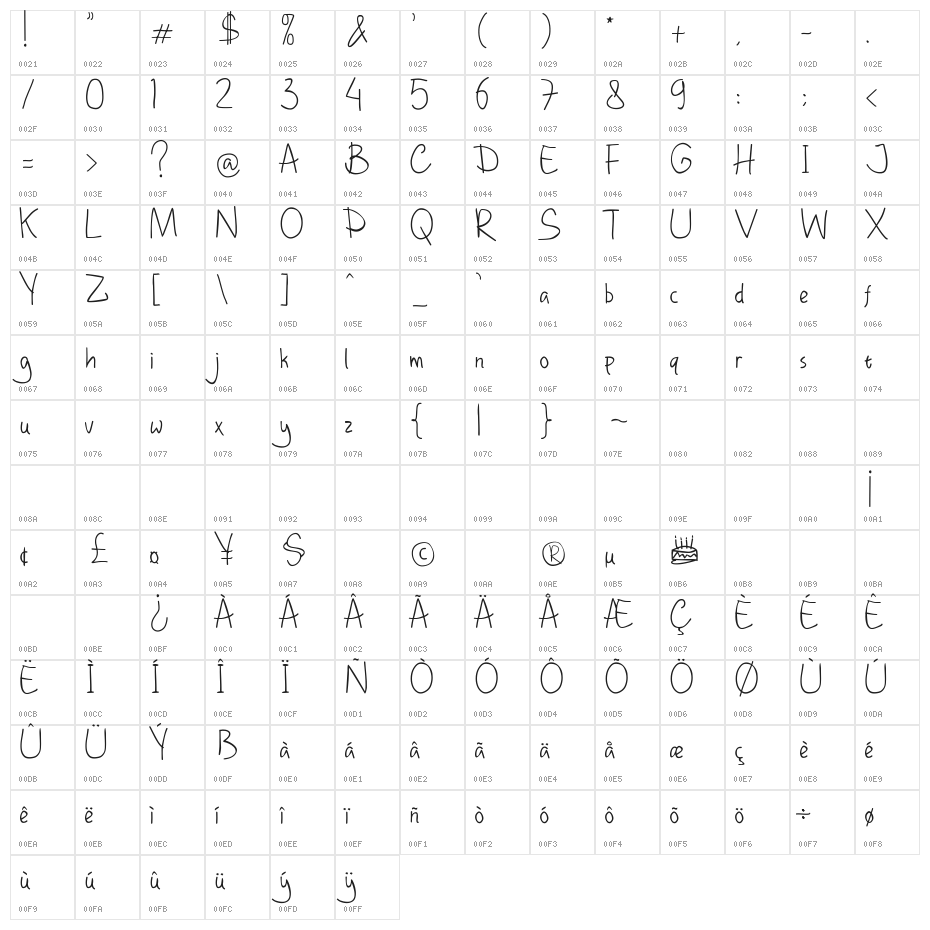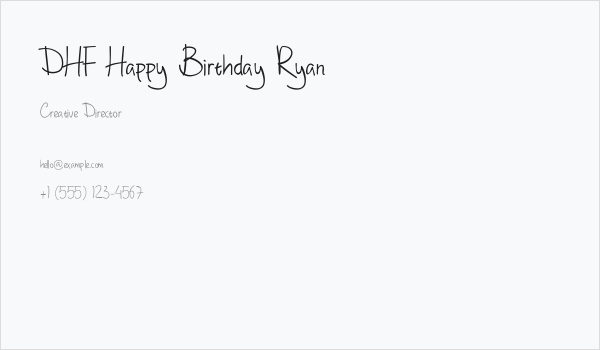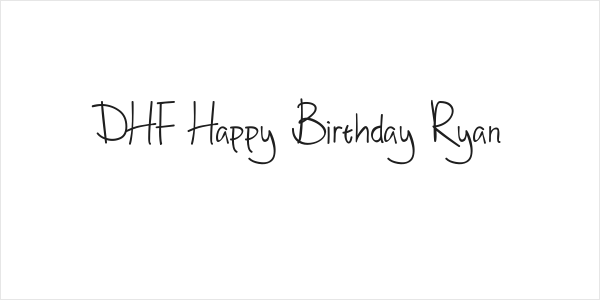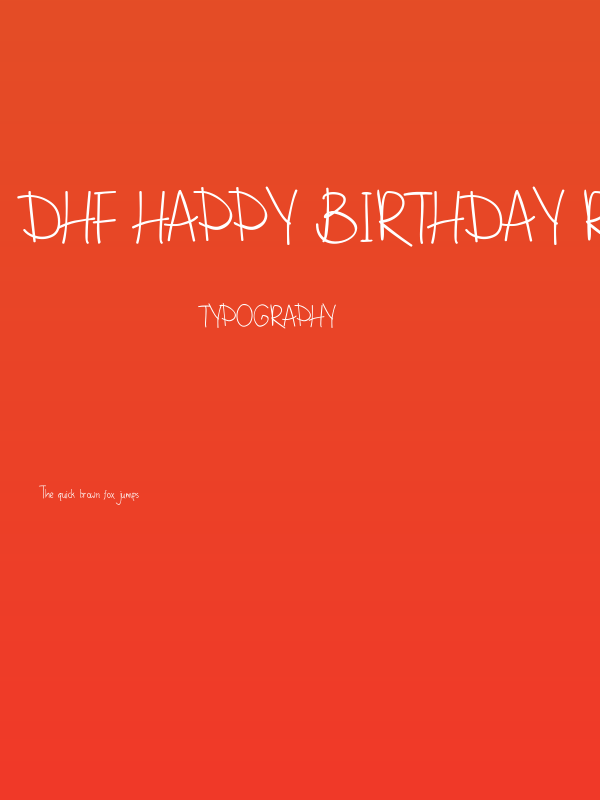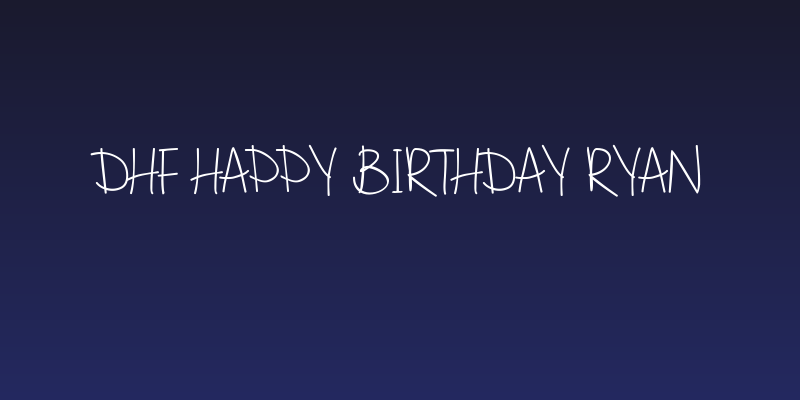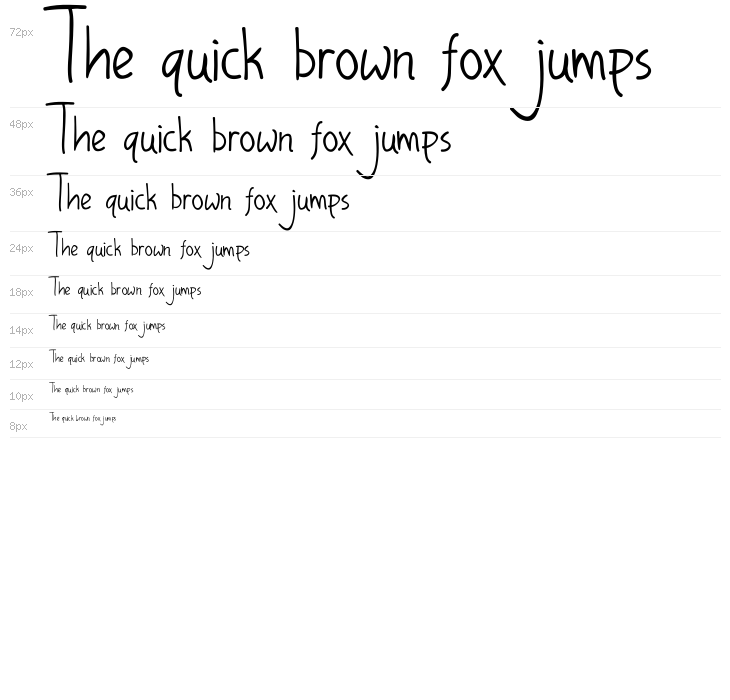
DHF Happy Birthday Ryan Font
DHF Happy Birthday Ryan Description
This playful and whimsical font features a handwritten style with a casual and friendly appearance. The characters are slightly irregular, giving it a personal touch that mimics natural handwriting. The uppercase letters are tall and slender, while the lowercase letters maintain a consistent flow with rounded edges. Numbers and special characters follow the same playful aesthetic, making it suitable for informal and creative projects. The font's overall appearance is light-hearted and approachable, perfect for adding a touch of personality to any design.
| Use Case | Headlines, Invitations, Greeting Cards |
| Proposed Projects | Ideal for greeting cards, children's books, playful branding, and personal invitations. |